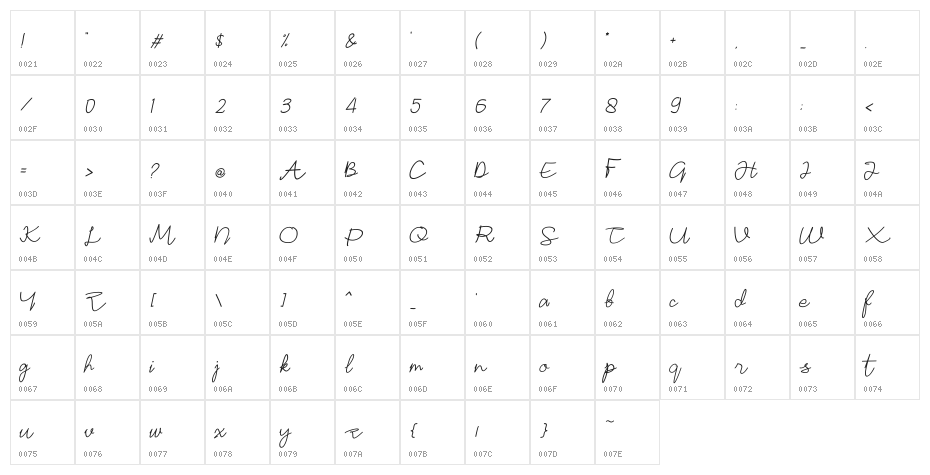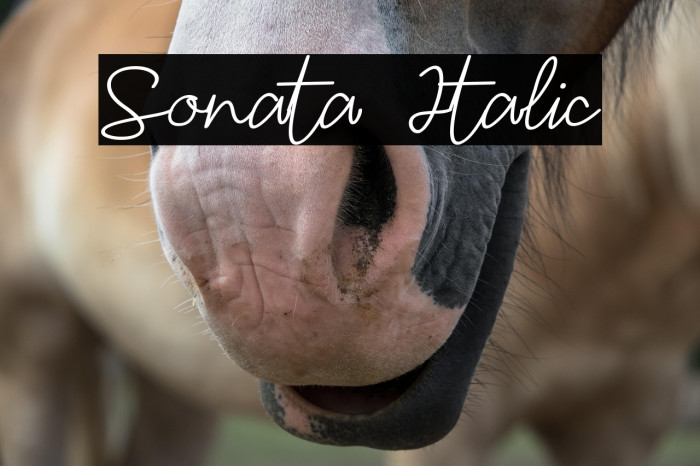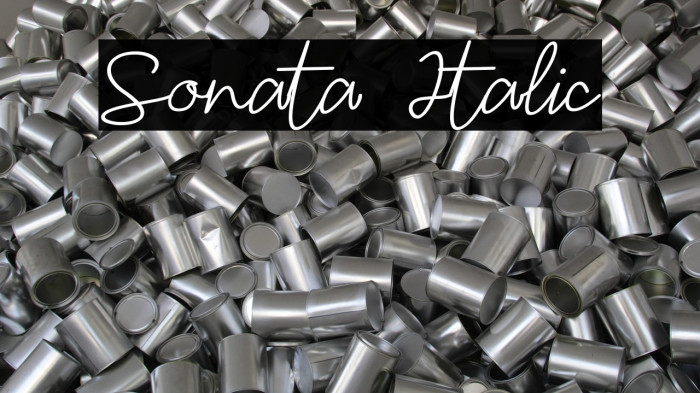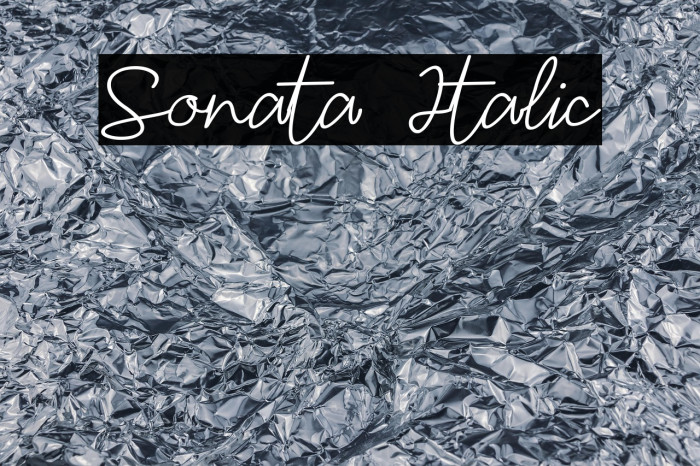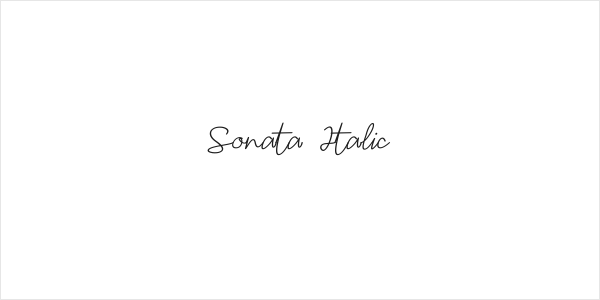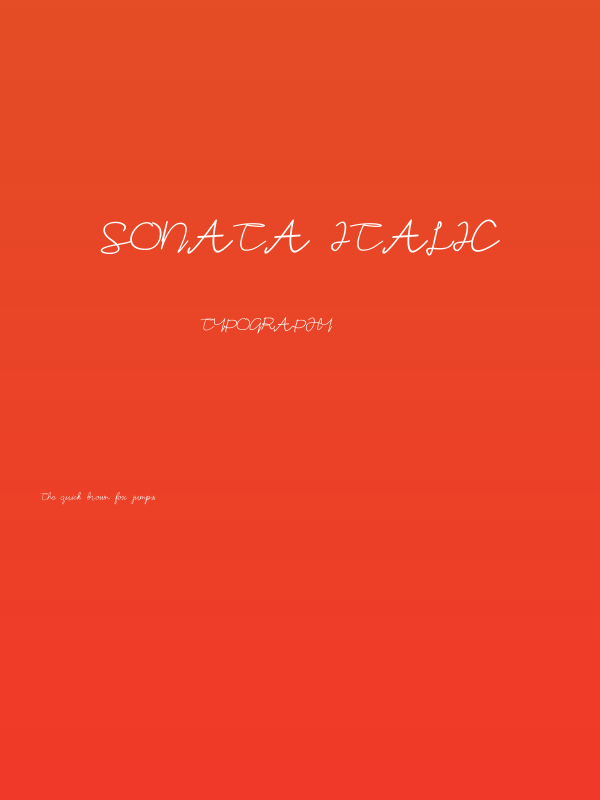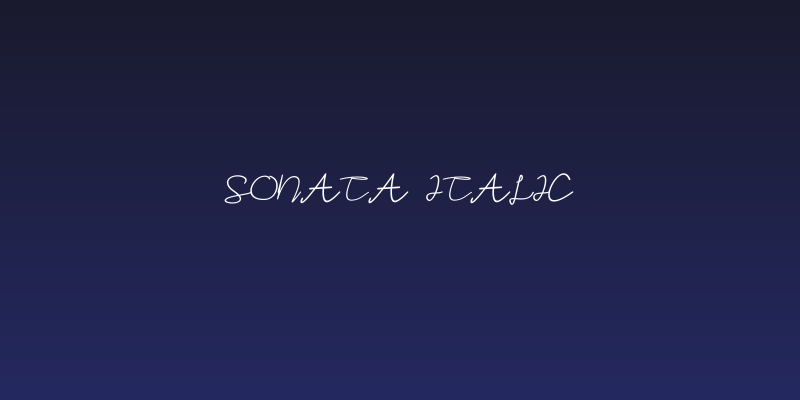
Sonata Italic Font
Sonata Italic Description
This font features a flowing, cursive style that mimics elegant handwriting. The characters are connected with smooth, sweeping strokes, giving it a graceful and fluid appearance. The uppercase letters are slightly more embellished, with some featuring loops and flourishes that add a touch of sophistication. The lowercase letters maintain a consistent slant, enhancing the italicized effect. Numbers and special characters are designed to match the overall aesthetic, ensuring a cohesive look. This font is ideal for projects that require a personal, handwritten touch.
| Overall Style | Elegant, Handwritten |
| Use Case | Logos, Invitations, Personal Correspondence |
| Proposed Projects | Ideal for wedding invitations, personal letters, greeting cards, and branding materials that require a personal touch. |